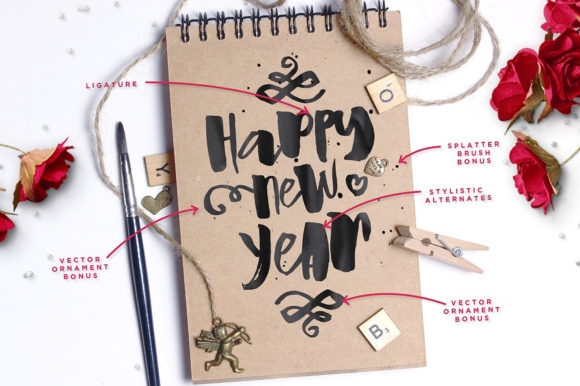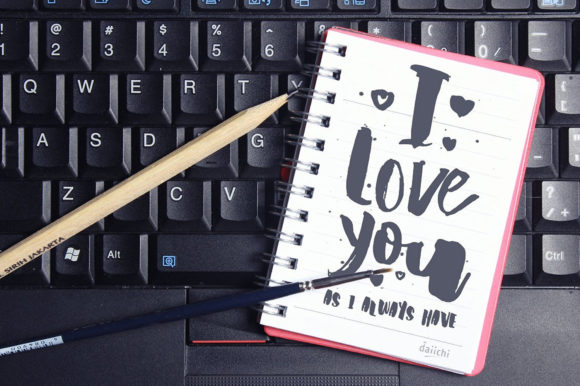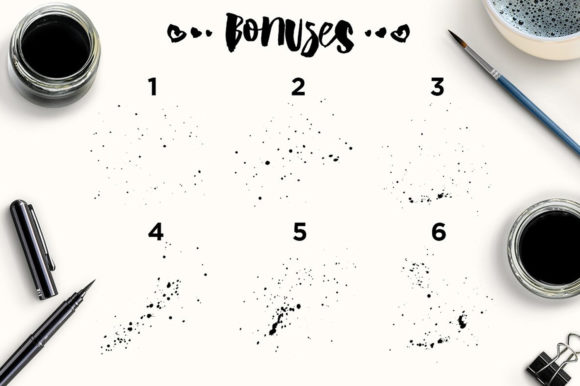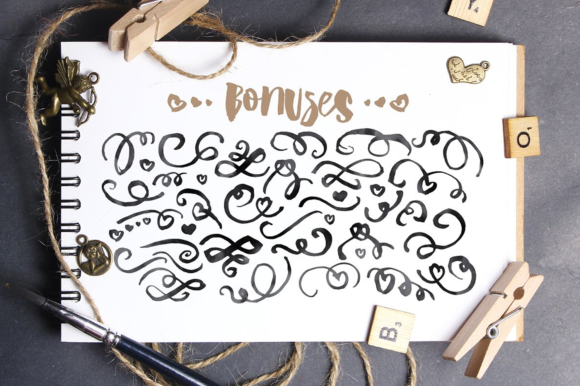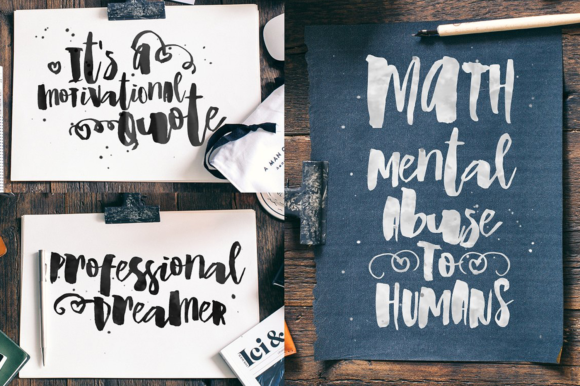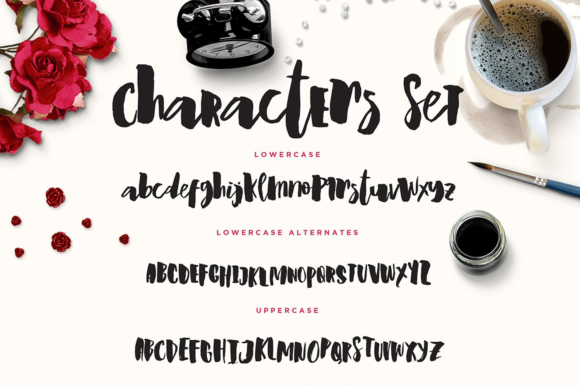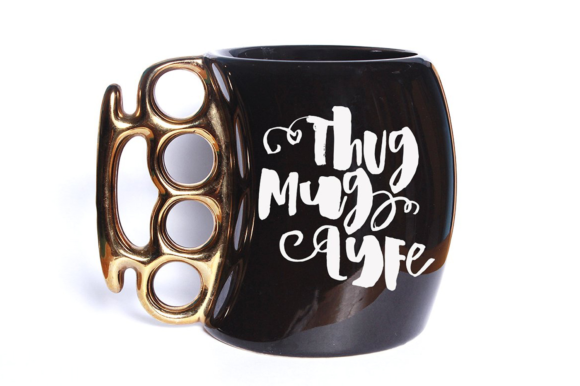
Wiggle Font
About Wiggle Font
Wiggle is a chic and trendy handwritten font. It will elevate a wide range of crafting ideas, from cards, to branding, labels and much more.